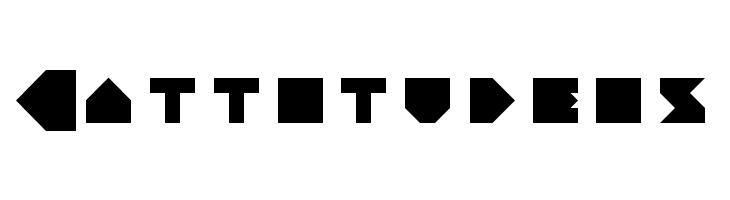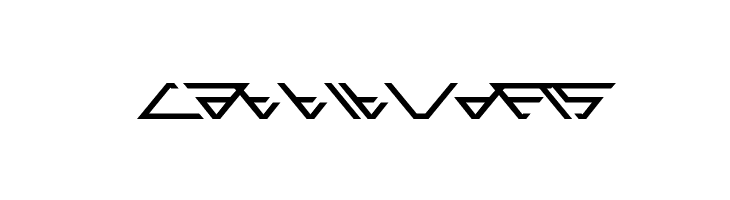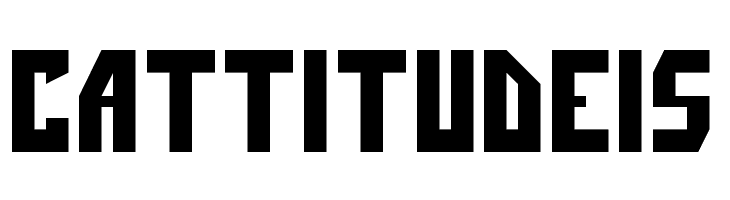
A classic, elegant script font with flowing, cursive letterforms and intricate flourishes.
A bold, flowing script font with ornate, tattoo-inspired lettering.
A dynamic, cursive script font with elegant, sweeping strokes.
A flowing, handwritten script font with elegant, elongated strokes.
A bold, artistic font with a hand-drawn, layered appearance.
A playful and elegant script font with flowing, cursive letterforms.
A lively, handwritten script font with fluid, connected letters.
A lively and expressive script font with dynamic, cursive letterforms.
A playful, handwritten font with smooth, rounded edges and a casual style.
A bold, stencil-like font with a military or industrial aesthetic.
A bold, high-contrast slab serif font with a commanding presence.
A playful, hand-drawn font with a whimsical and casual style.
A playful, hand-drawn style with bold, rounded strokes and moderate contrast.
A modern, geometric font with high contrast and angular shapes.
A geometric and artistic font with high contrast and cultural elements.
A bold, geometric font with high contrast and architectural elements.
A bold, geometric font with a modern and decorative style.
A bold, angular font with a geometric and modern style.
A modern, angular font with geometric shapes and sharp angles.
A playful, handwritten script font with smooth, flowing lines.
A clean, modern font with balanced spacing and clear characters.
A graceful script font with fluid, cursive strokes and a handwritten feel.
A bold, energetic handwritten font with dynamic curves and a playful style.
A bold, geometric font with sharp angles and a modern aesthetic.
A whimsical, hand-drawn font with tall, slender letterforms and playful design.
A whimsical, handwritten font with thin, elongated strokes and playful curves.
A bold, angular font with a futuristic and abstract style.
A bold, artistic font with dynamic, sweeping strokes and a decorative style.
A bold, cursive script font with a flowing, handwritten style.
A classic serif font with high contrast and elegant strokes.